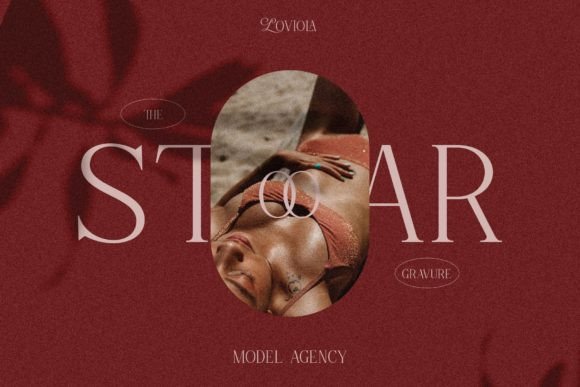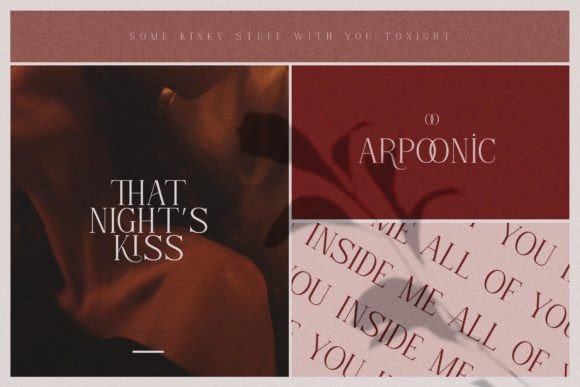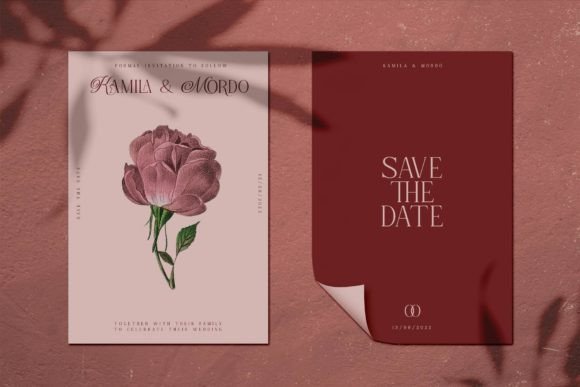
Introduction to Loviola Font
Loviola is a sophisticated, charming serif font with a fashionable touch.
Specially designed for luxury, elegant, feminine projects, this font is perfectly suitable for creating modern, chic designs .
Loviola Font offers exceptional quality and versatility, making it a valuable addition to your design toolkit. Whether you’re creating for personal projects or commercial use, Loviola Font delivers professional results.